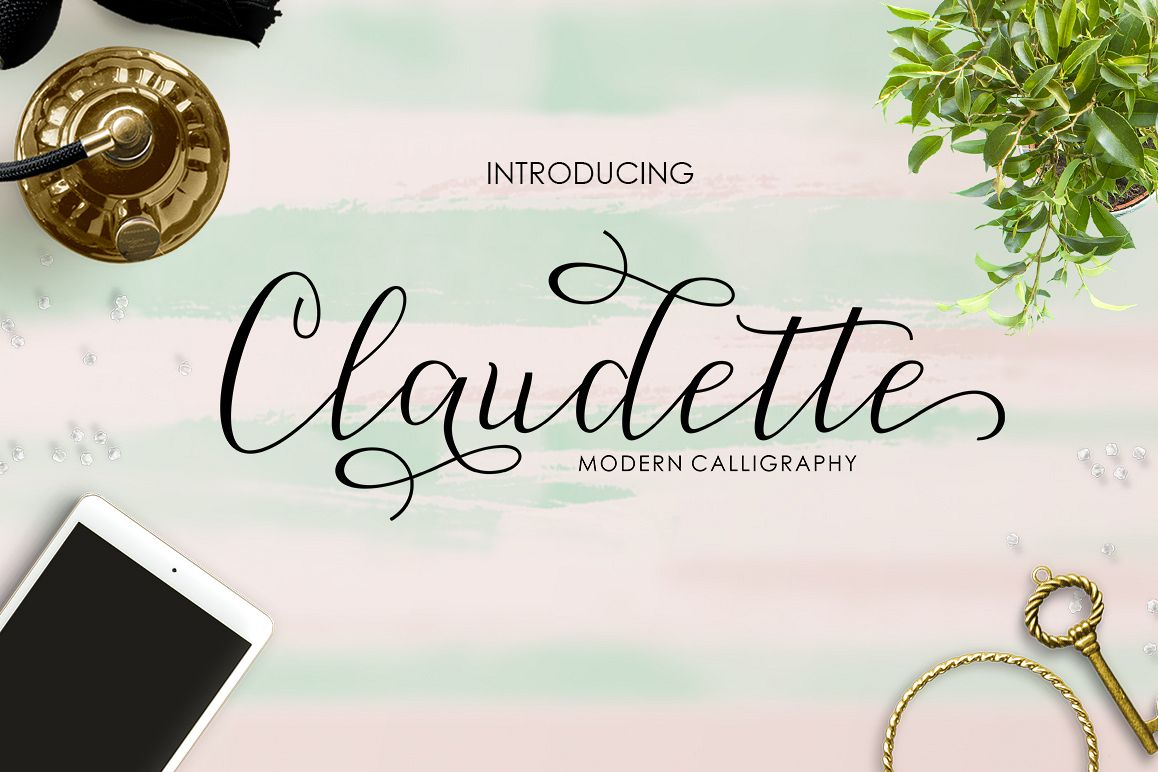
Claudette Script
Claudette Bold
Claudette
Claudette Script Modern calligraphy design, including Regular and Bold Script. This font is casual and pretty with swashes.
Can used for various purposes. such as signature, logo, product packaging, wedding invitations, branding, headlines,
signage, labels, book covers, posters, quotes and more.
Claudette Script features OpenType stylistic alternates, ligatures and International support for most Western Languages is included.